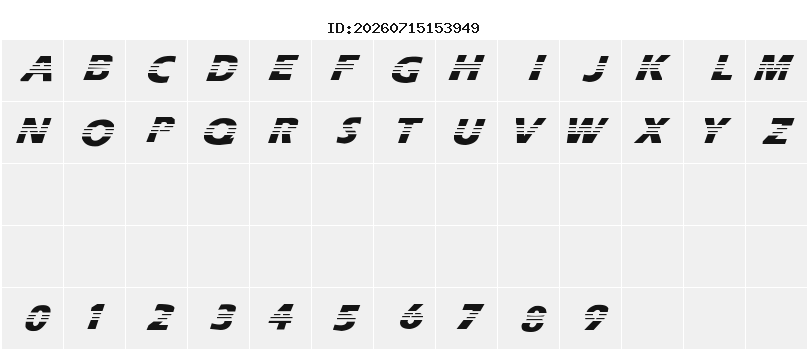
• Font Name: adidas sport
• Font Style: sport
adidas sport.ttf is a modern, elegant sans-serif font designed for ultimate readability and visual harmony. Perfect for branding, headlines, web design, and print materials.